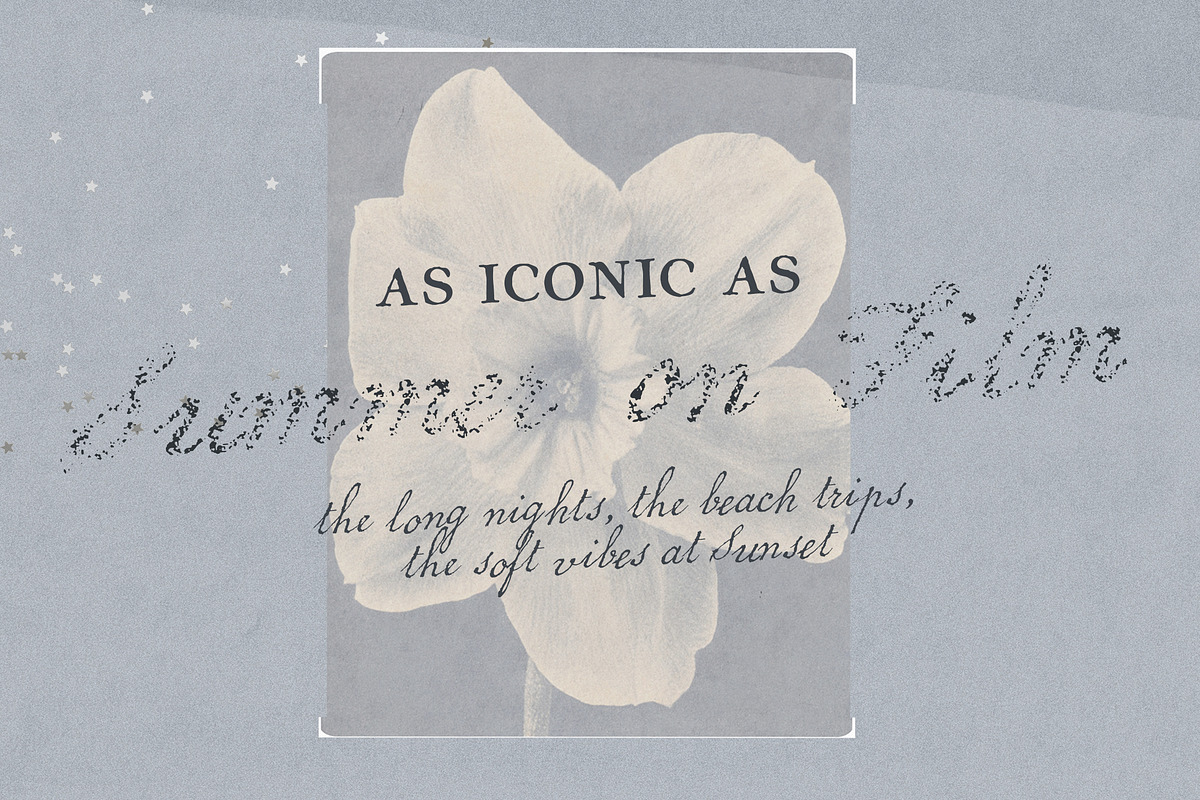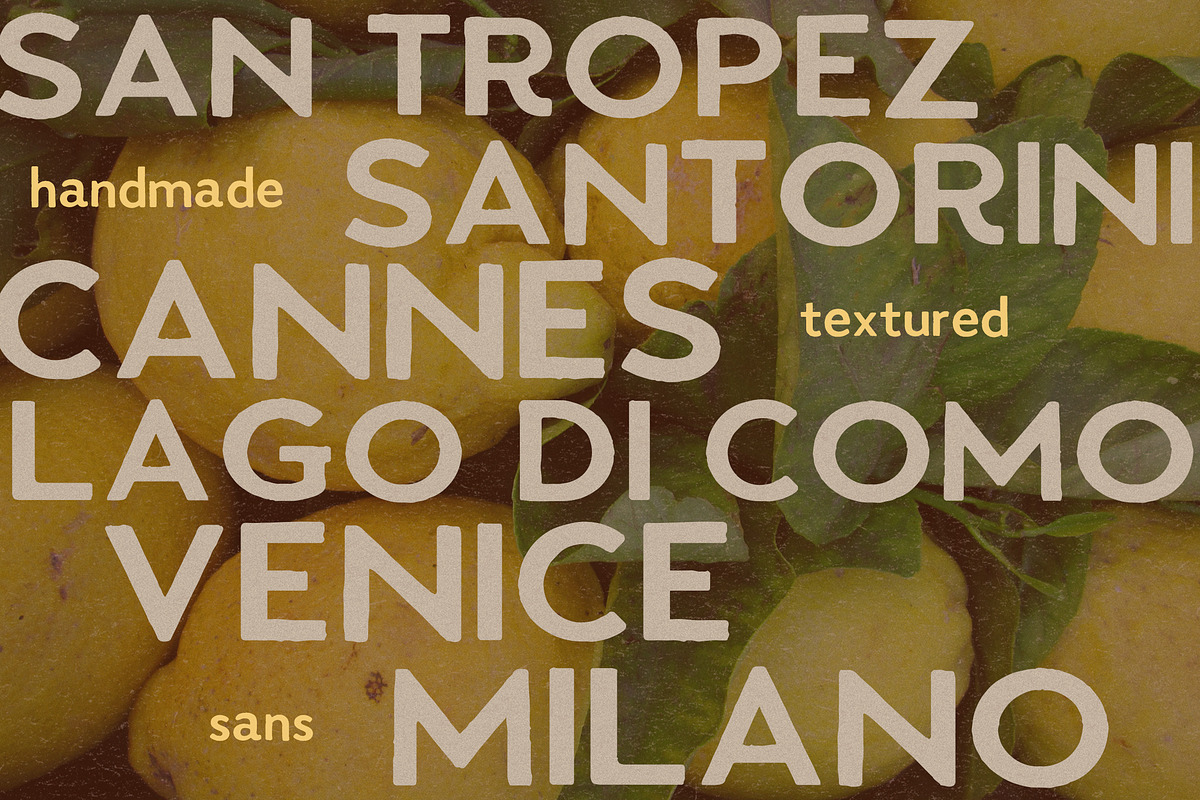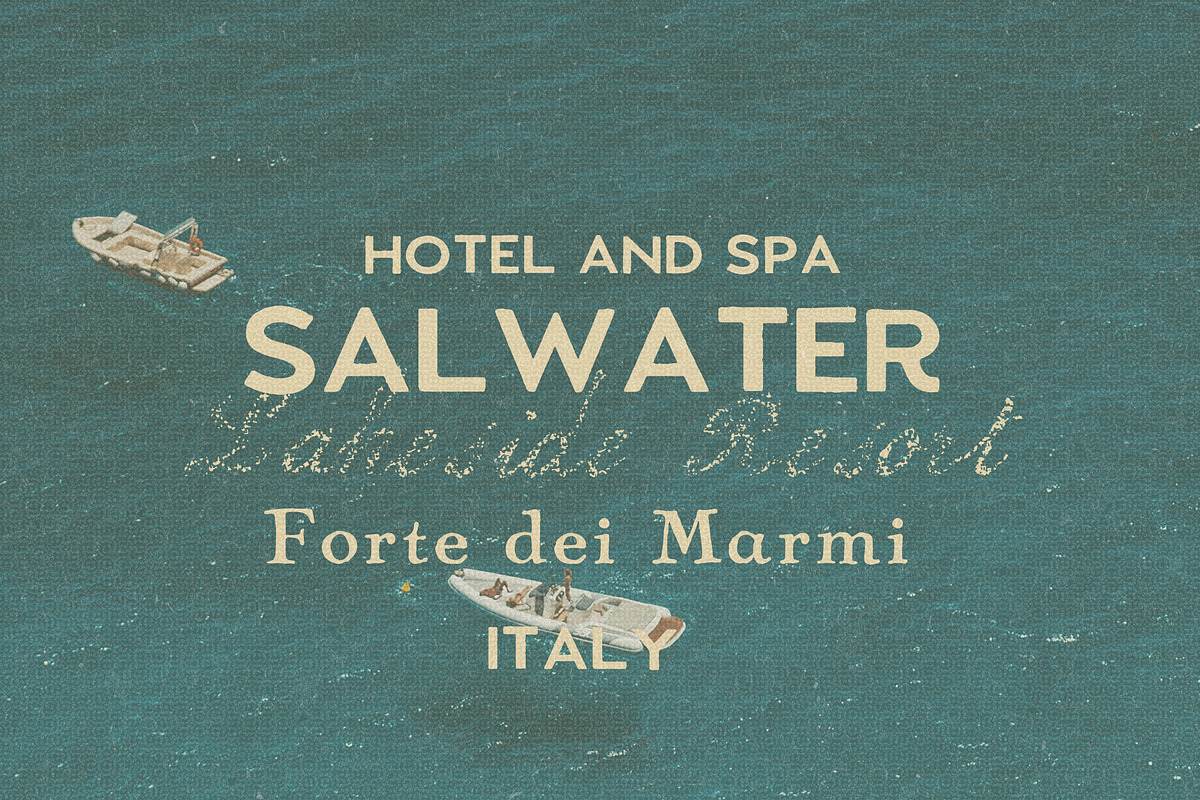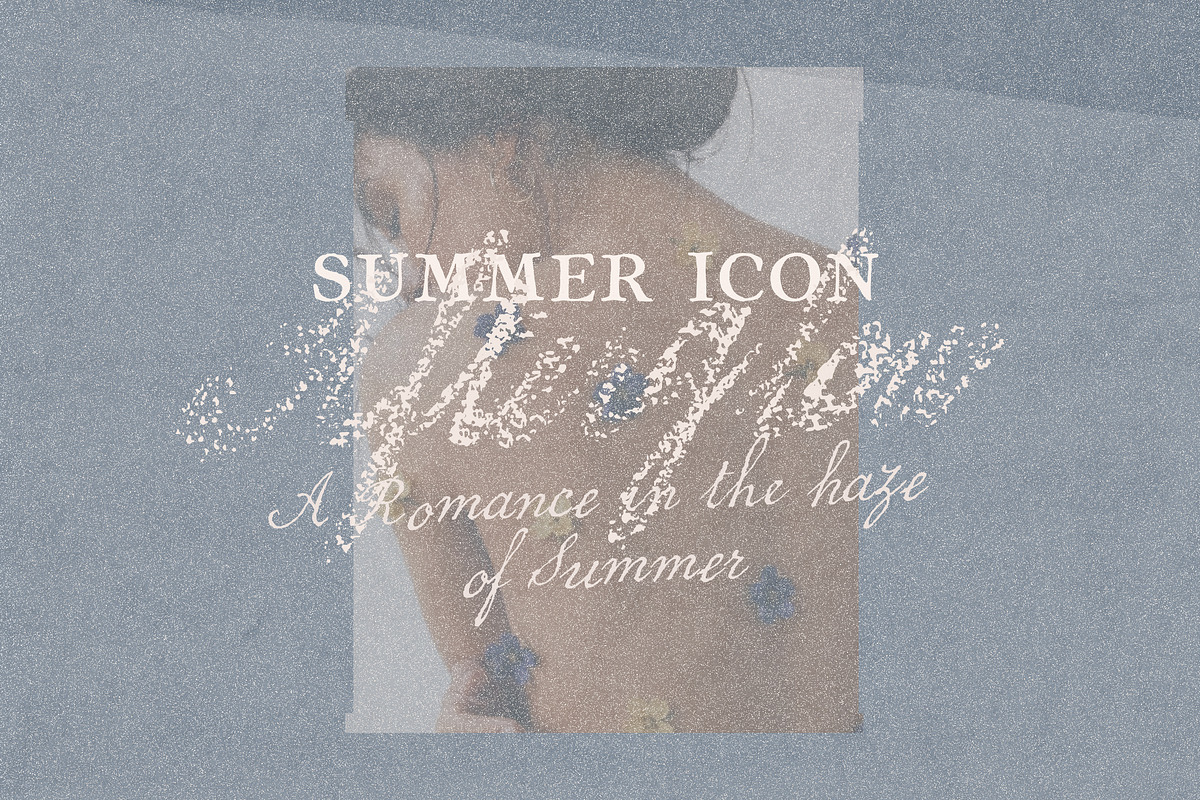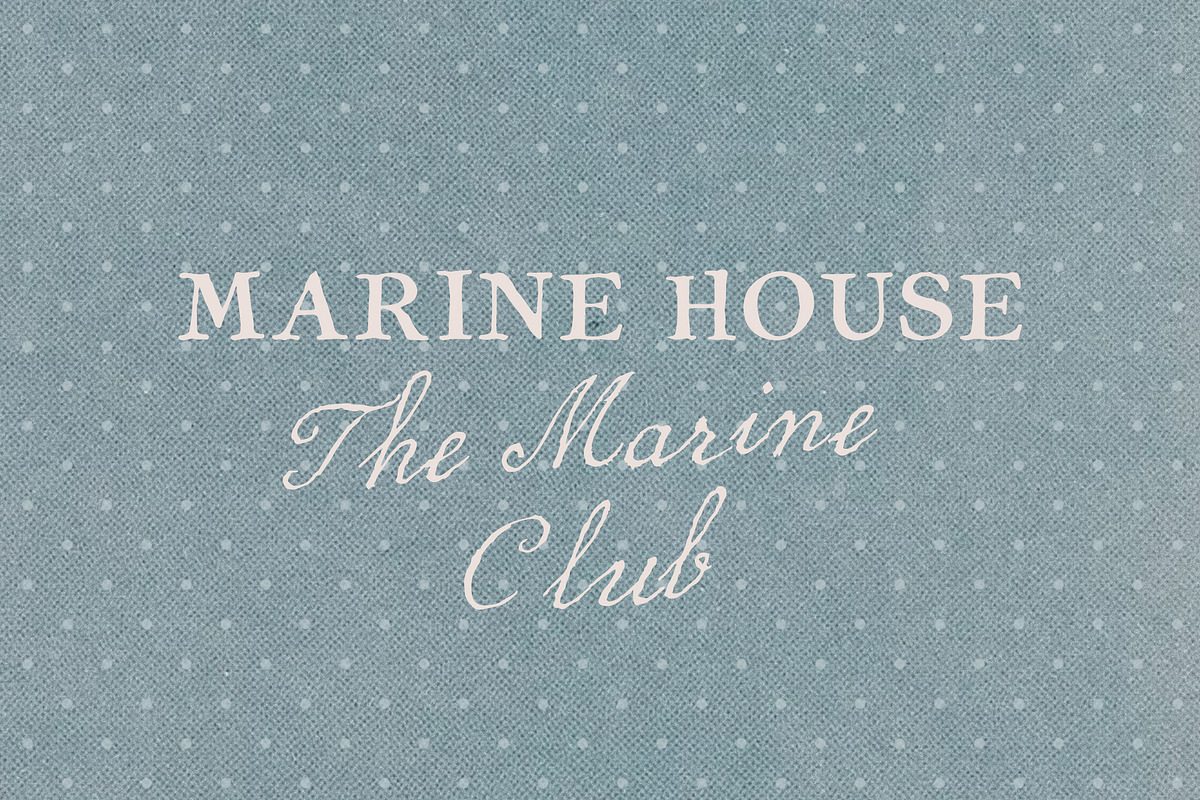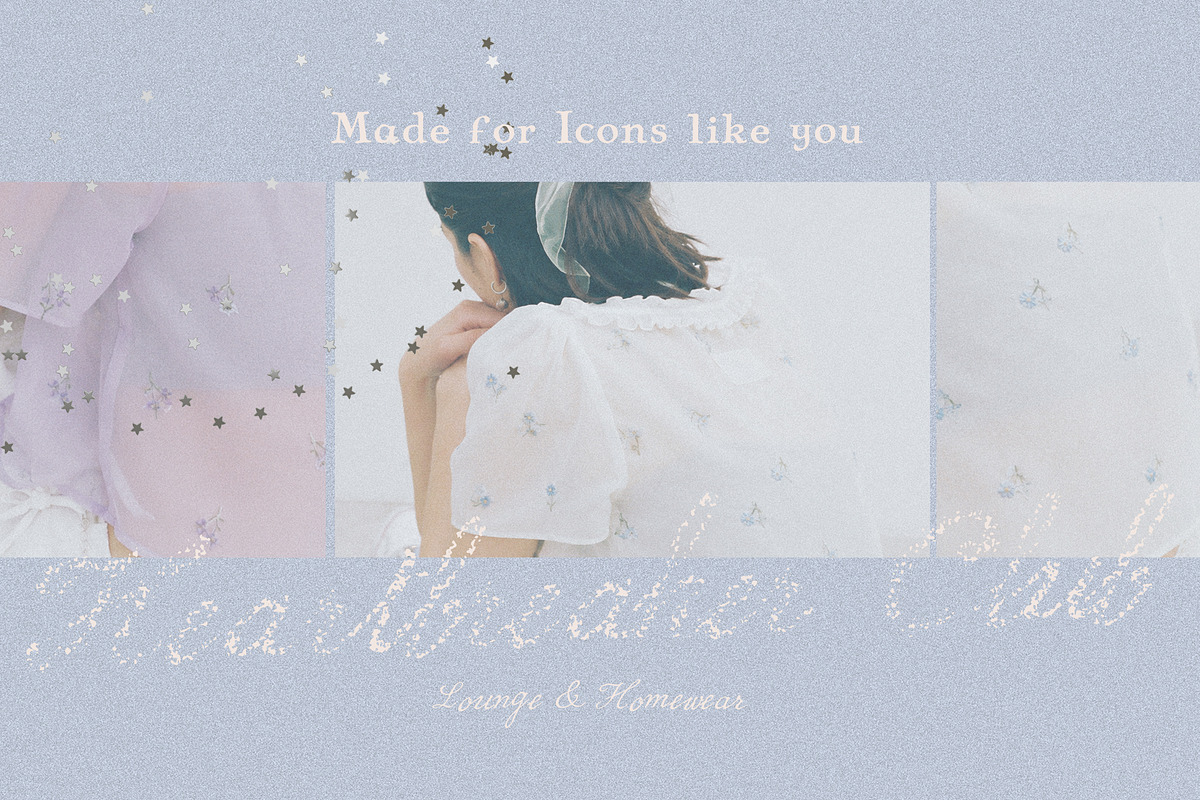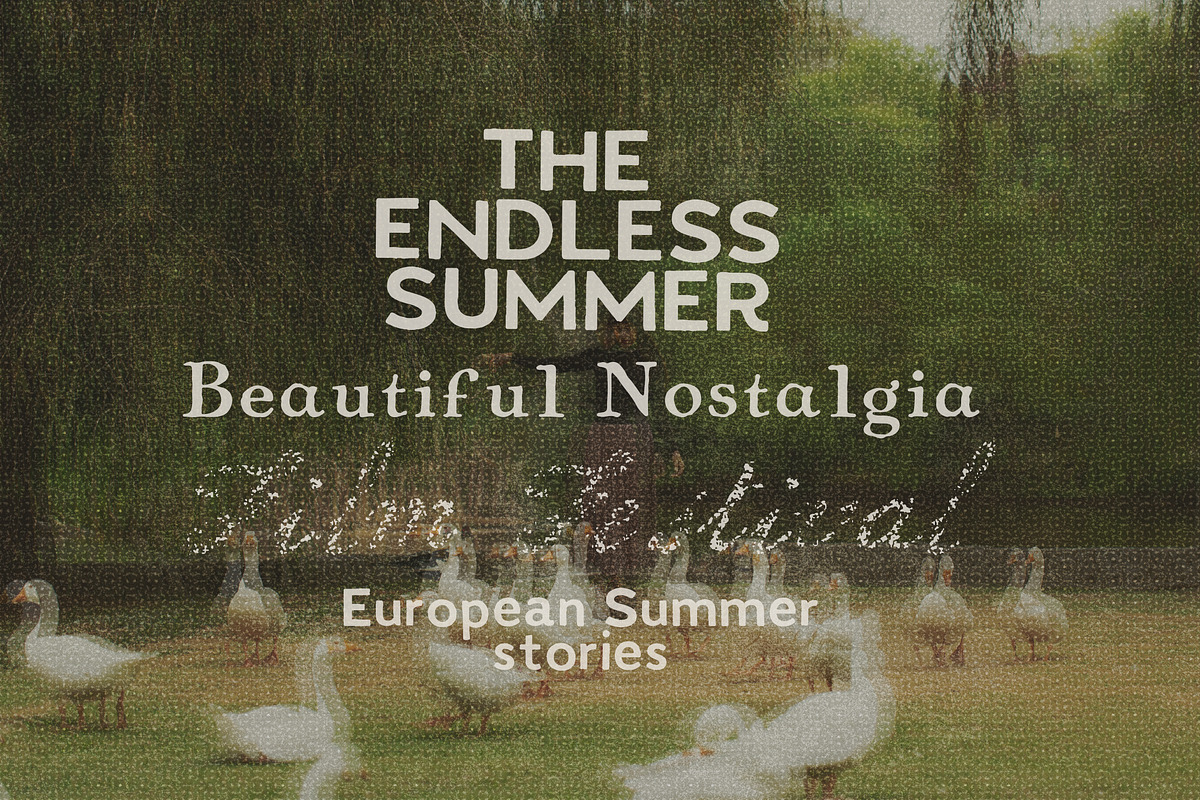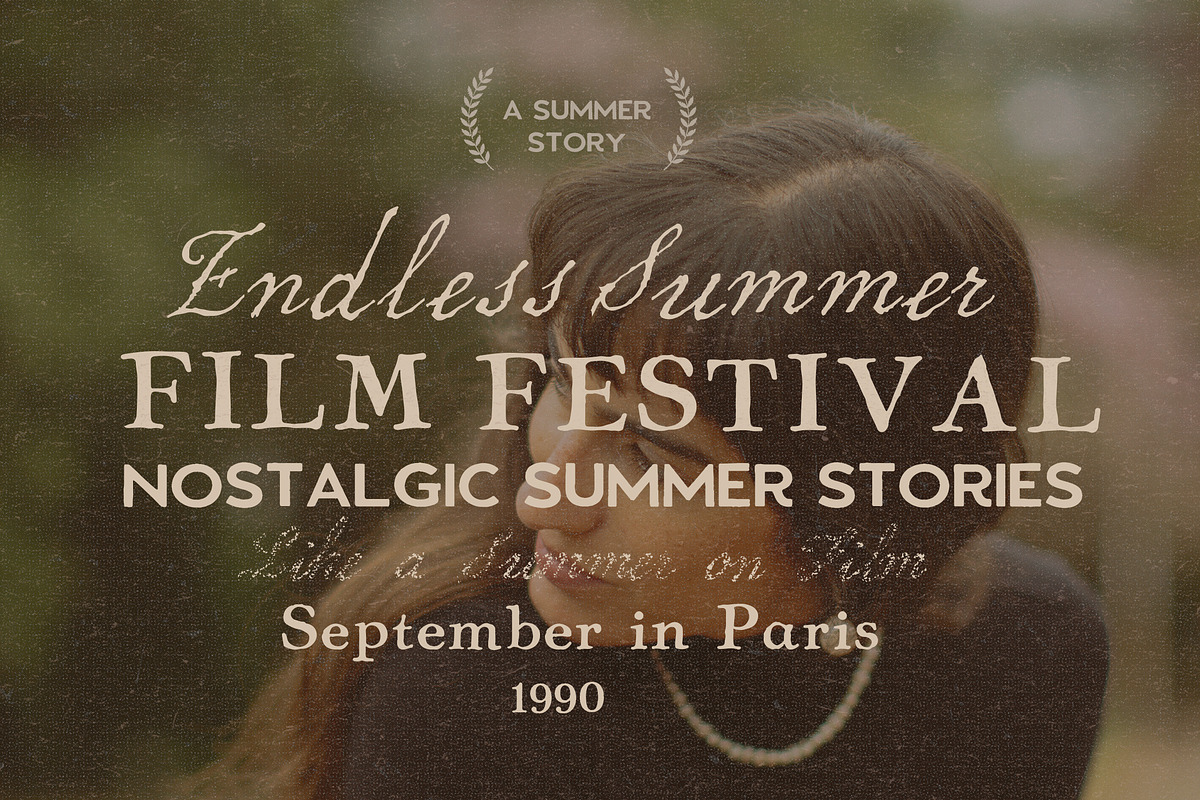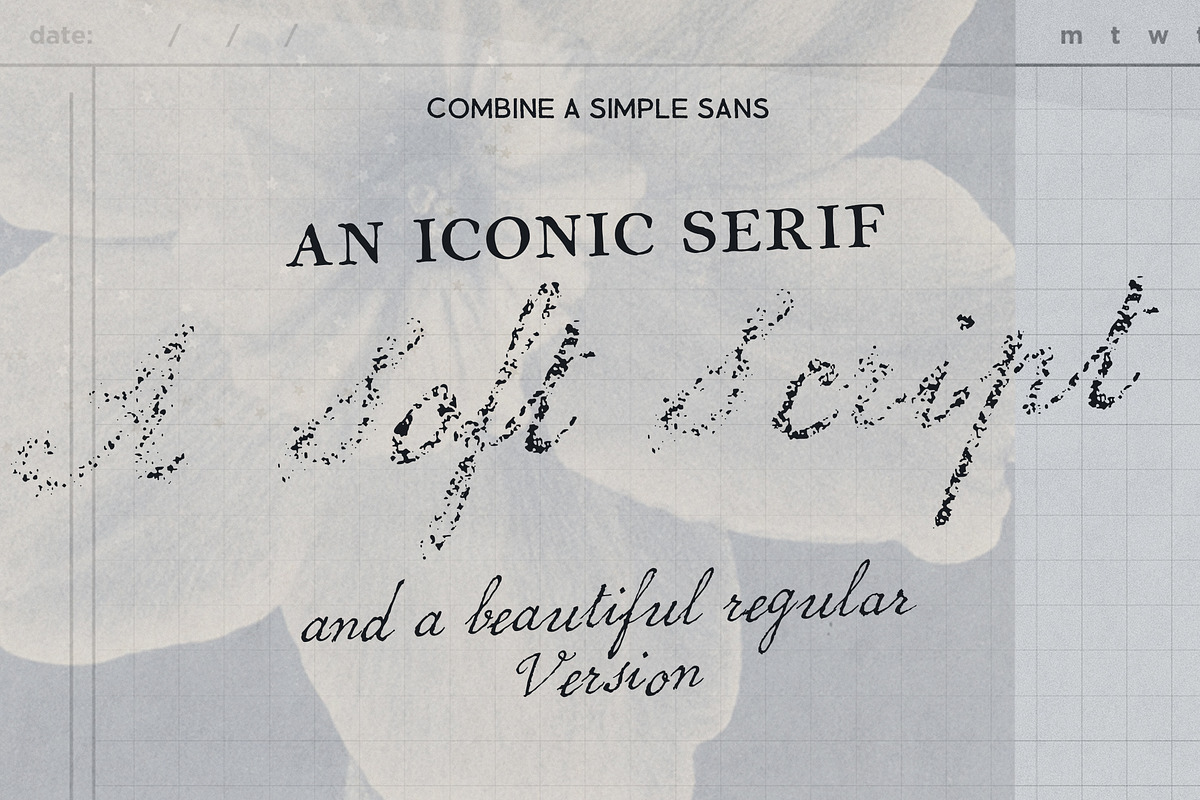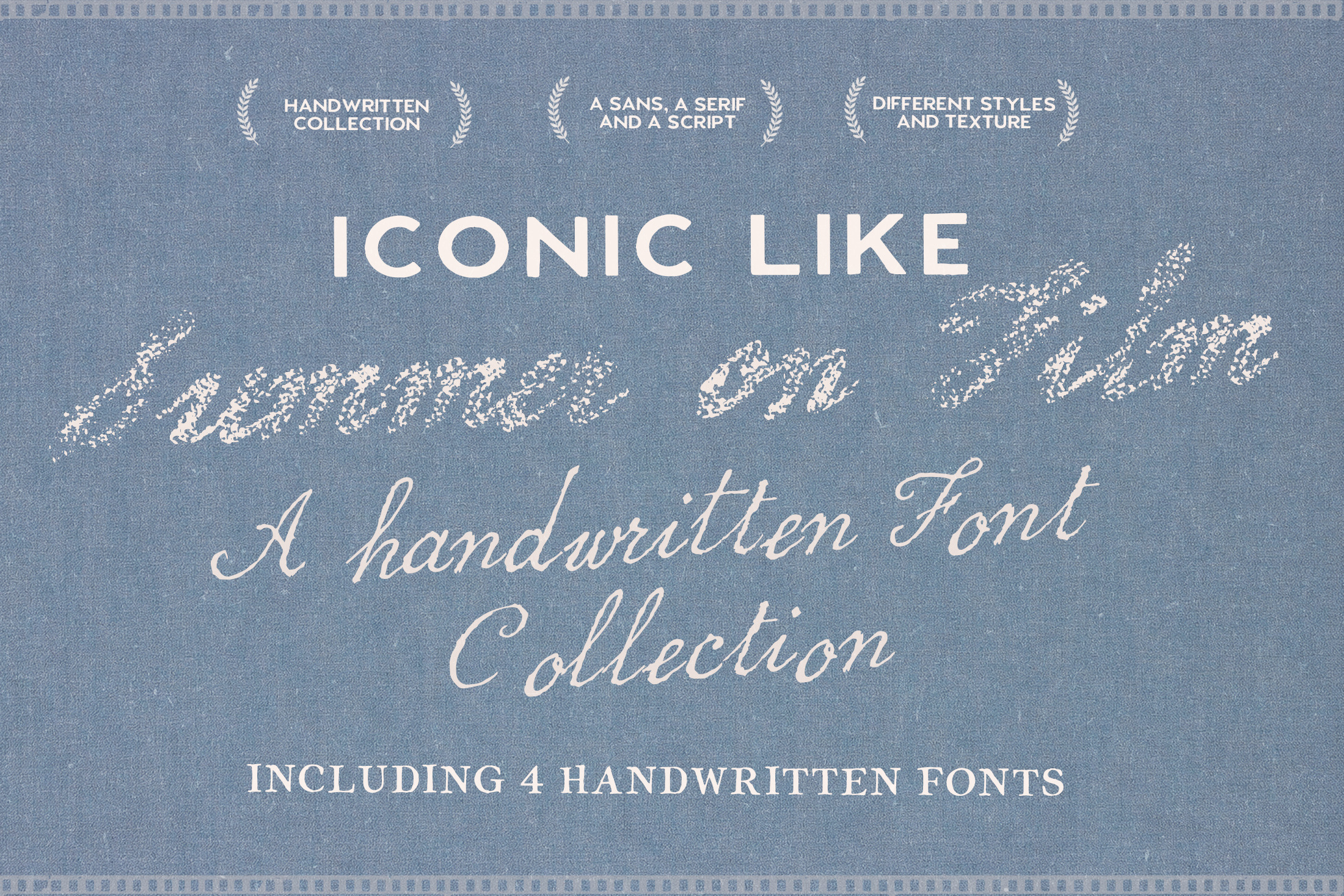
Handwritten Nostalgic Texture Fonts
Beautifully handwritten with a subtle nostalgic finish, this combination of fonts is an ode to vintage film, summer vibes and artisan materials. The handwritten script comes in two styles: a regular version with soft texture and a clean alternative for a more refined look. Paired with an elegant serif, the collection captures the warmth of sun-faded memories, handwritten postcards and golden evenings by the coast. Perfect for branding, editorial designs, packaging, wedding stationery and timeless summer-inspired projects.
MorningHaze.Otf (a vintage serif)
Afterglow.Otf (a handwritten elegant script)
AfterglowSoft (a wonderfully textured version)
SaltwaterSans (a simple and rustic sans serif)